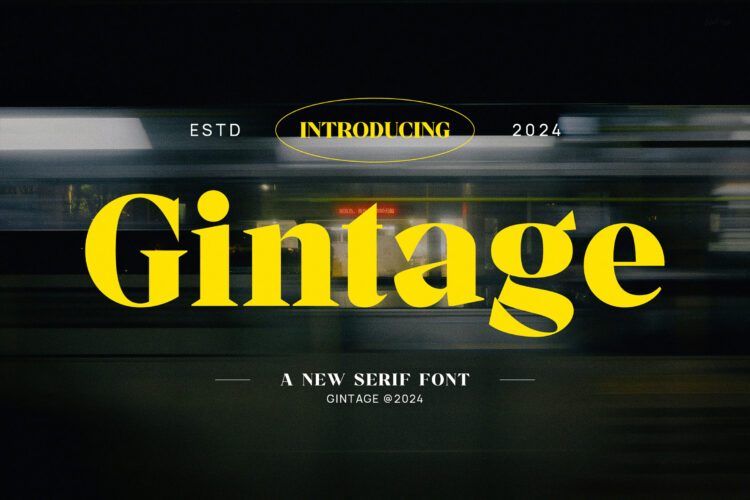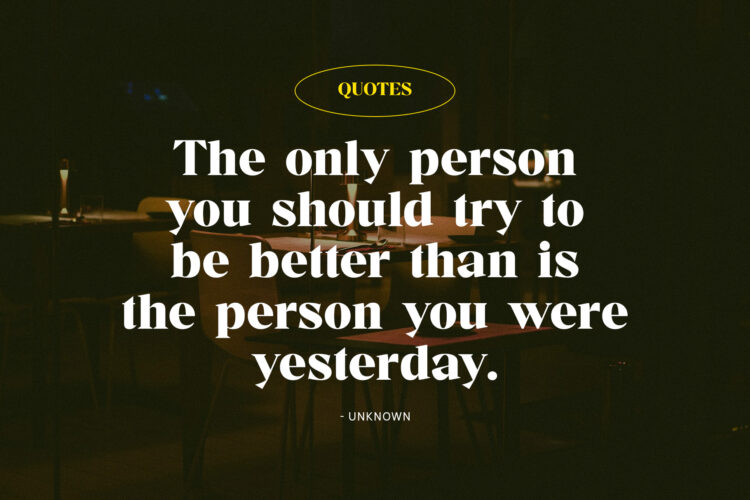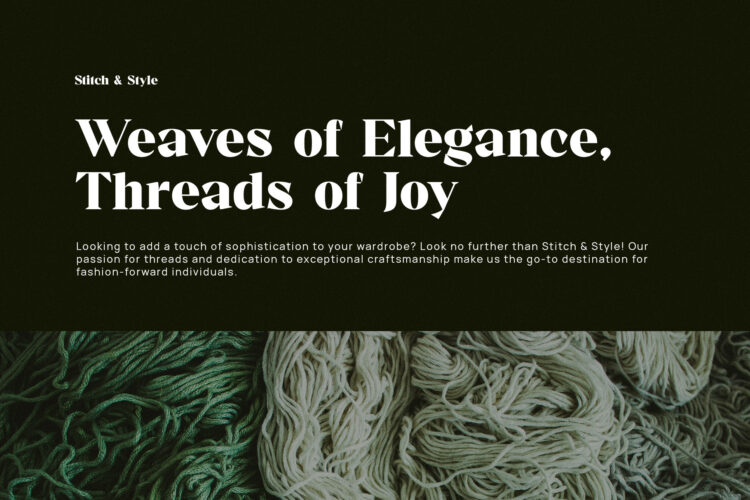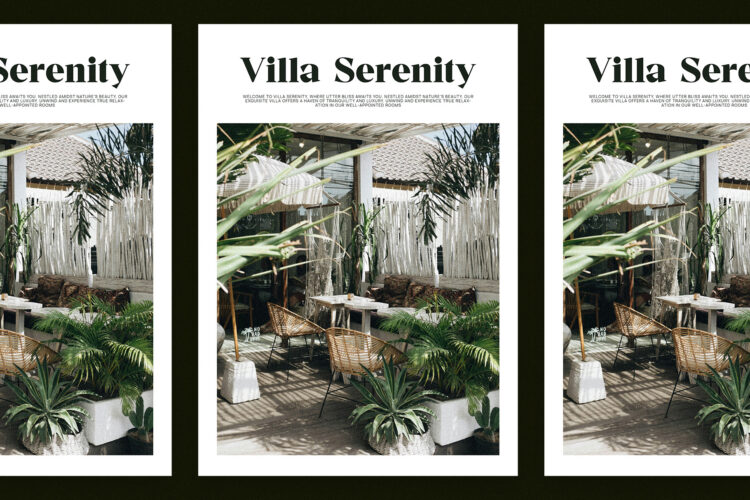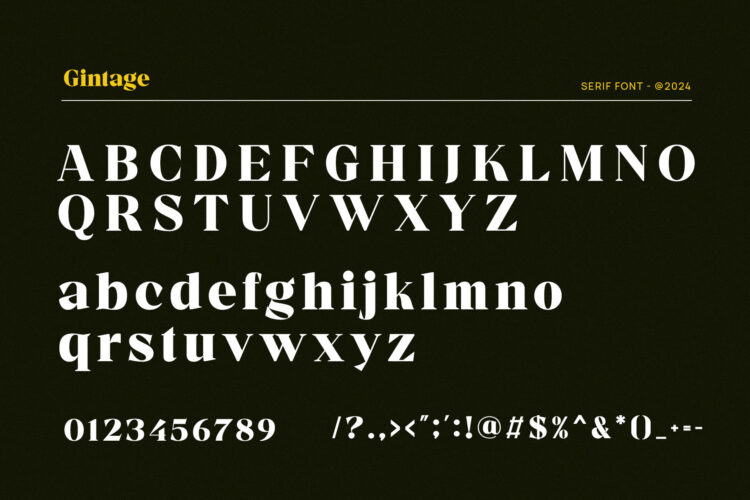
Introducing our new Gintage, modern serif font with elegant style this is perfect for branding, logos, invitation, magazines, product packaging and more.
Gintage – Modern Display Serif